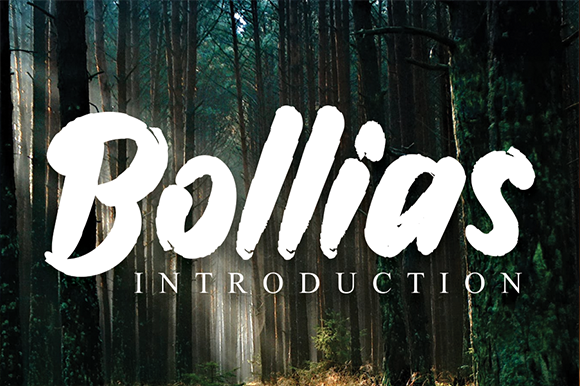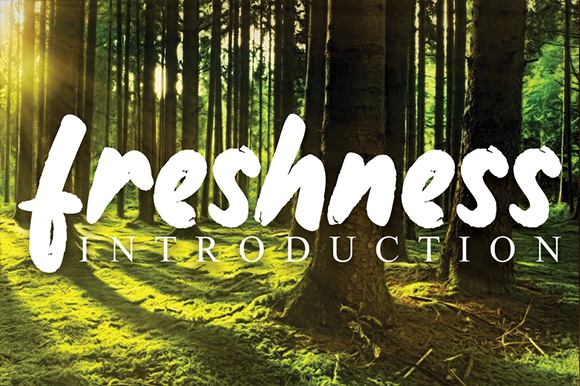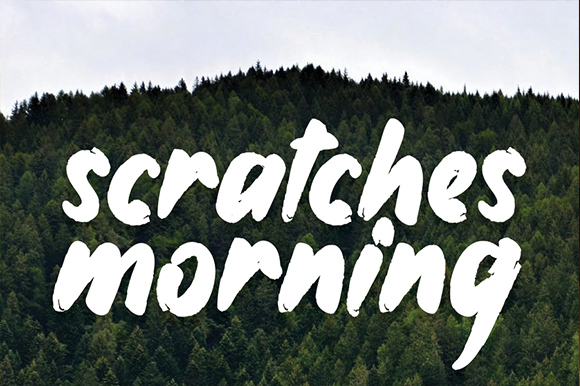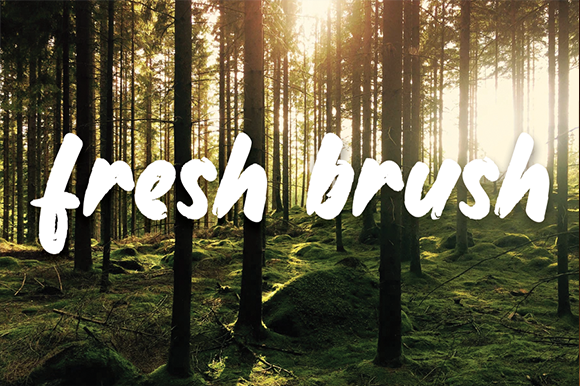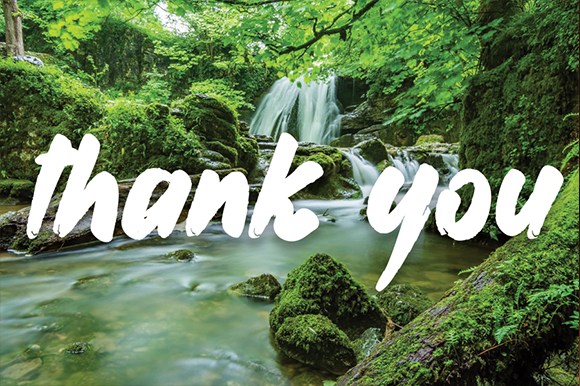
Bollias Font
About Bollias Font
Bollias is a casual, elegant handwritten font, created by using a brush pen. Clean and a little bit quirky, this font is the perfect fit for all of your logos, branding, social media, and crafty DIY projects.